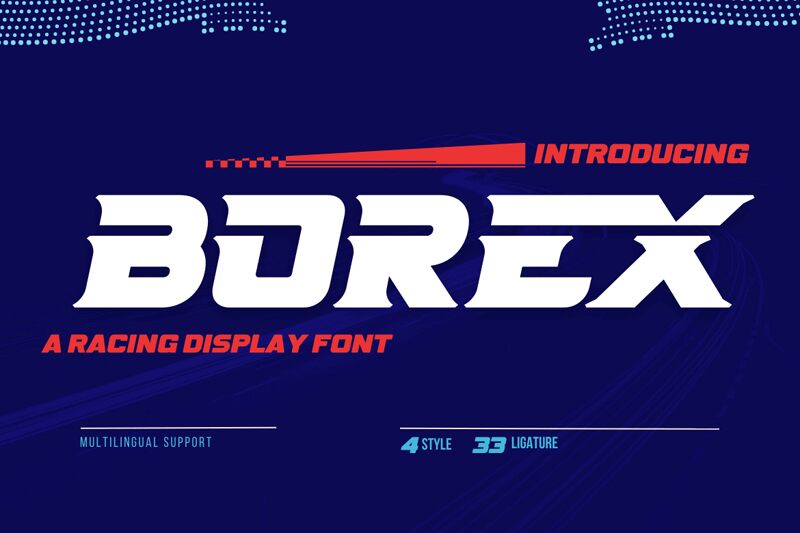
Borex Variation stands out with its commanding presence, crafted by Twinletter to leave a lasting impression. This serif font boasts bold strokes and an expanded form, imbuing any text with a sense of importance and stability. Its serifs add a traditional touch, while the substantial letterforms suggest confidence and strength.
Ideal for headlines, branding, and advertising where impact is key, Borex Variation offers designers a robust tool for creating eye-catching content that demands attention. The font's clear, strong appearance also makes it suitable for editorial uses where readability at large sizes is essential.